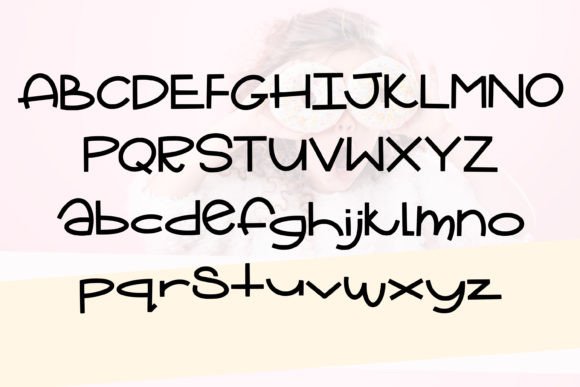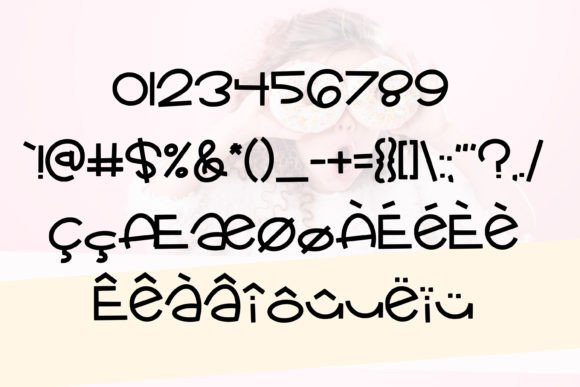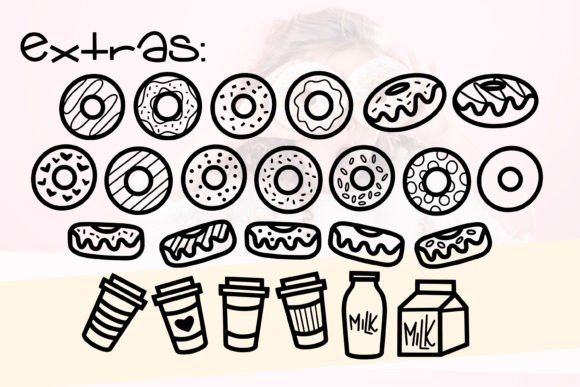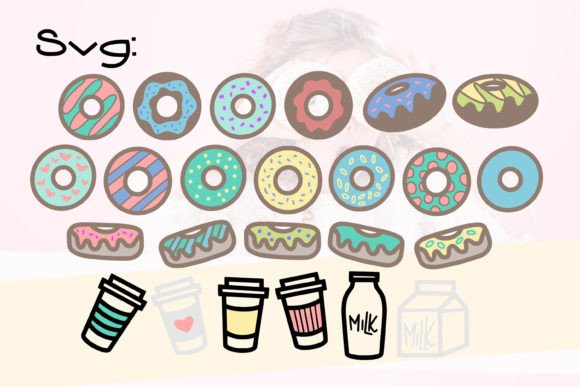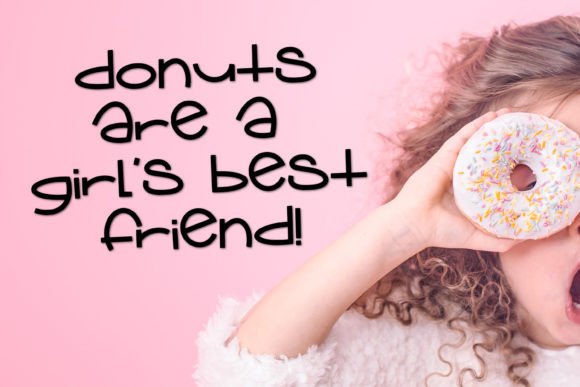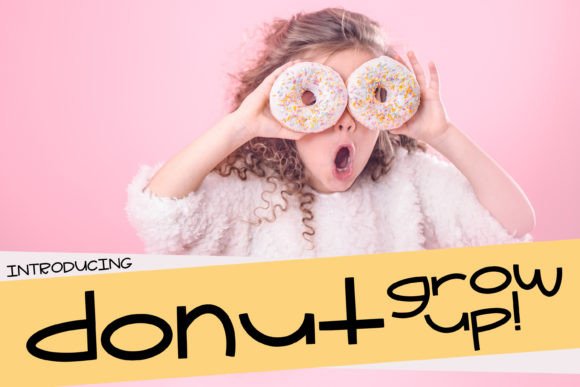
Introducing Donut Grow Up: The Sweetest Font for Your Designs!
Are you tired of using the same old fonts in your designs? Do you want to add a touch of whimsy and fun to your projects? Look no further than Donut Grow Up, the playful font that’s as sweet as your favorite treat!
What is Donut Grow Up?
Donut Grow Up is a fun and playful font that’s perfect for designers and crafters who want to add a youthful and carefree vibe to their work. With its bold, rounded letters, this font is sure to bring a smile to anyone’s face. Whether you’re creating a kid’s birthday party invitation, a social media graphic, or a fun craft project, Donut Grow Up is the perfect companion.
Features of Donut Grow Up
So, what makes Donut Grow Up so special? Here are just a few of its amazing features:
- Bold and rounded letters: The bold, rounded letters of Donut Grow Up are sure to grab attention and add a playful touch to your designs.
- Whimsical doodles: The font comes with extra doodles of donuts and coffee, making it perfect for fun-loving projects.
- Youthful and carefree vibe: Donut Grow Up is sure to bring a youthful and carefree vibe to any design, making it perfect for kid’s parties, social media content, and more.
Donut Grow Up is perfect for designers and crafters who want to add a touch of fun and whimsy to their work. Whether you’re creating:
- Kid’s party invitations: Add a playful touch to your kid’s party invitations with Donut Grow Up.
- Social media graphics: Use Donut Grow Up to create adorable social media graphics that are sure to grab attention.
- Craft projects: Add a fun and playful touch to your craft projects, such as DIY signs, cards, and more.
Why Choose Donut Grow Up?
So, why choose Donut Grow Up over other fonts? Here are just a few reasons:
- Unique and playful: Donut Grow Up is a unique and playful font that’s sure to stand out from the crowd.
- Versatile: Donut Grow Up is versatile and can be used for a variety of projects, from kid’s parties to social media graphics.
In conclusion, Donut Grow Up is the perfect font for designers and crafters who want to add a touch of fun and whimsy to their work. With its bold, rounded letters and whimsical doodles, this font is sure to bring a youthful and carefree vibe to any design. So, why wait? Download Donut Grow Up today and start creating sweet and playful designs that are sure to delight!